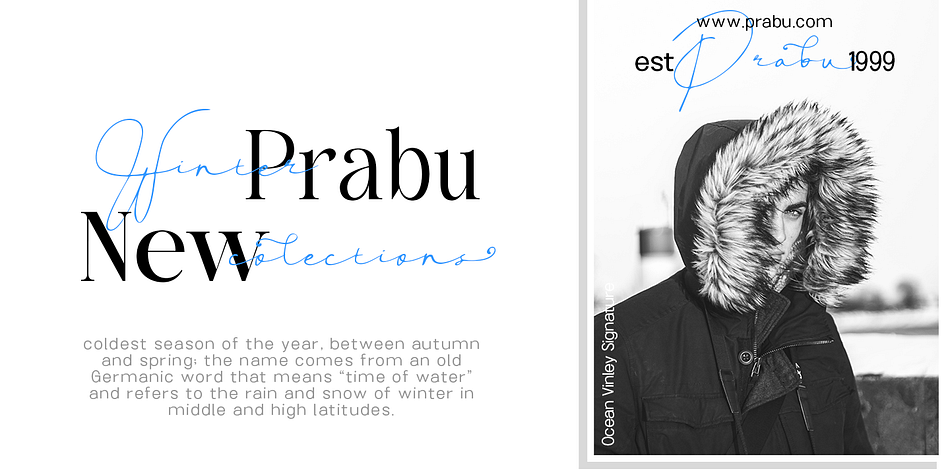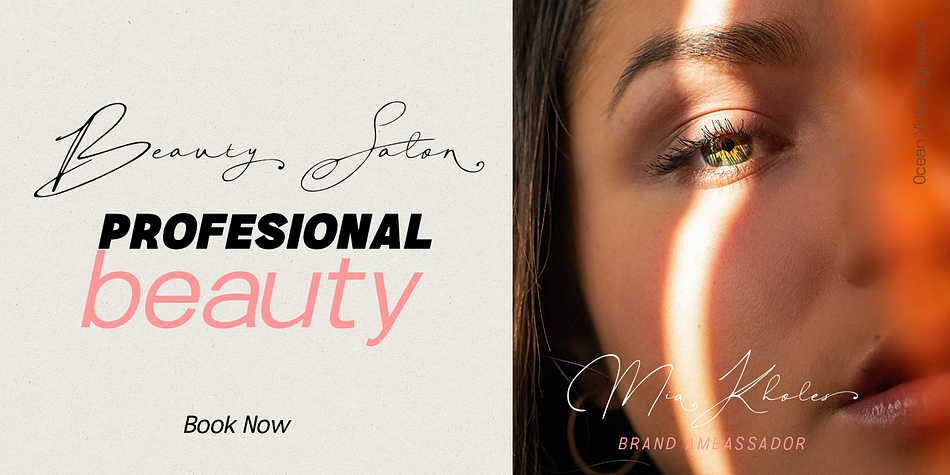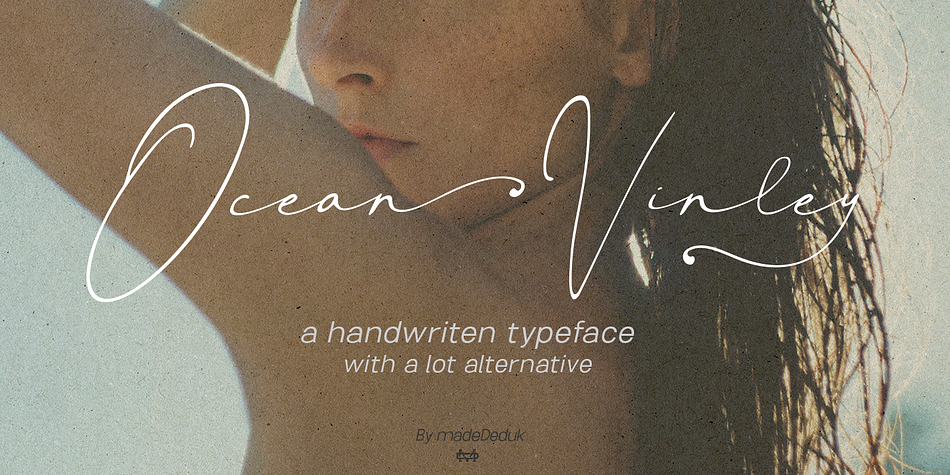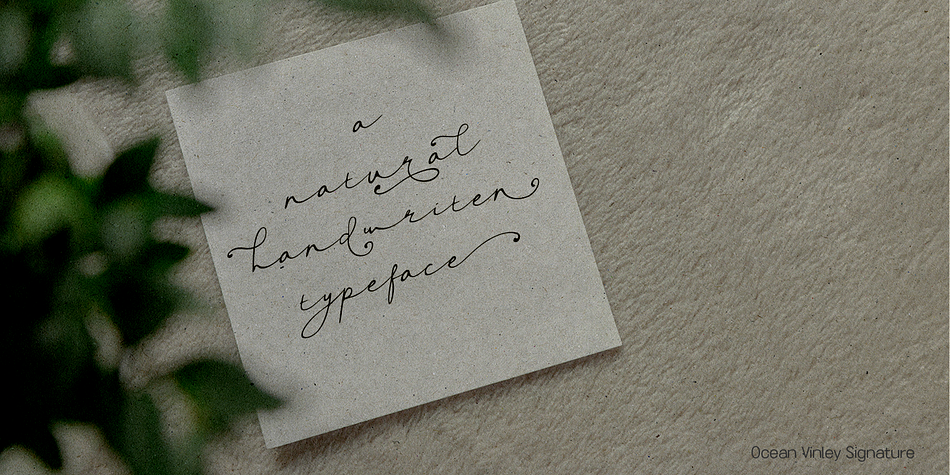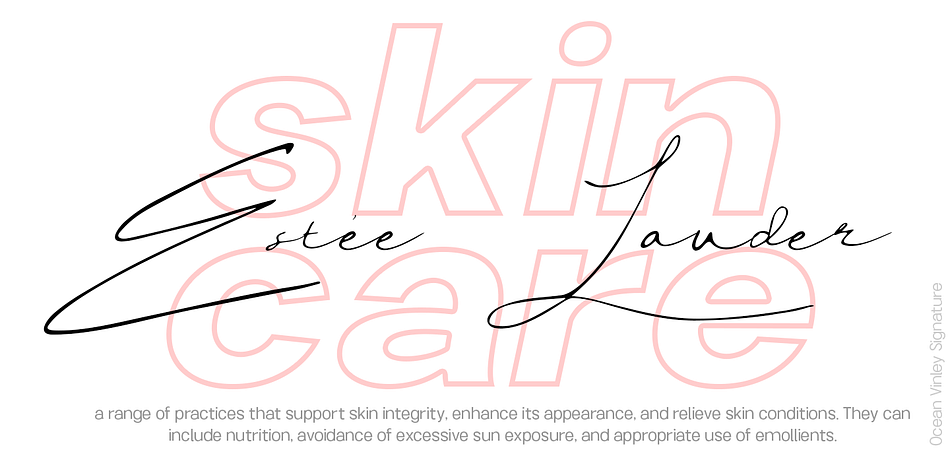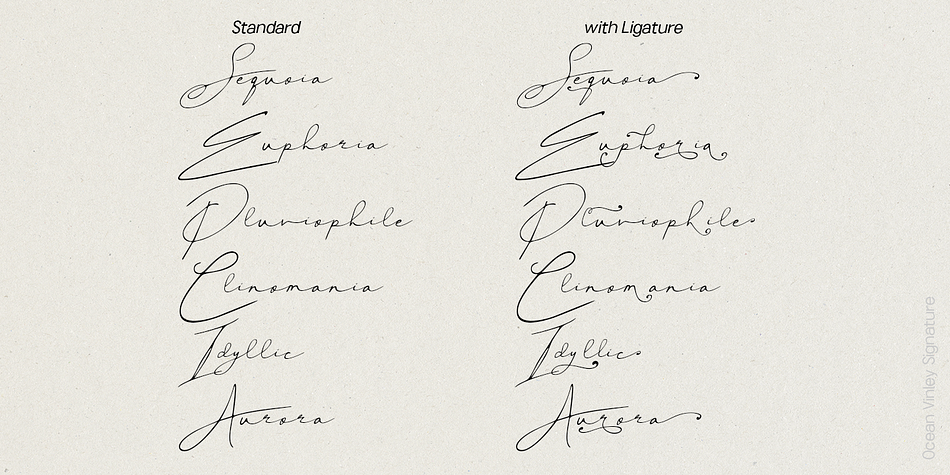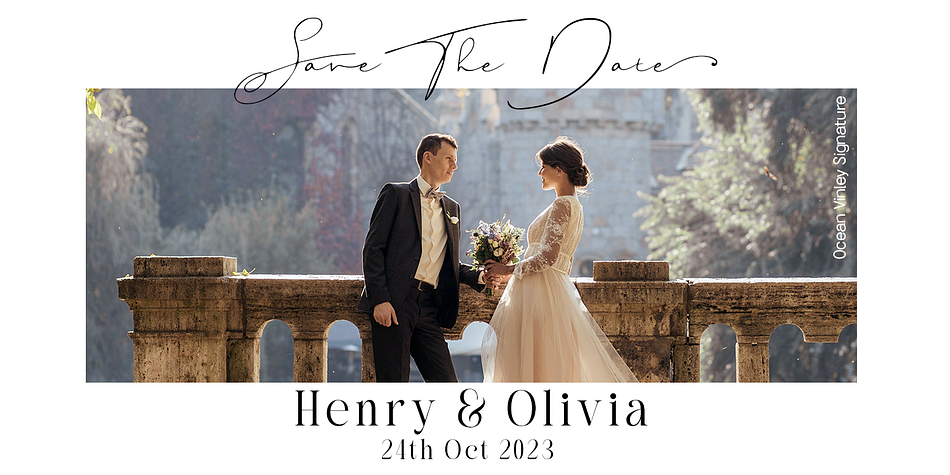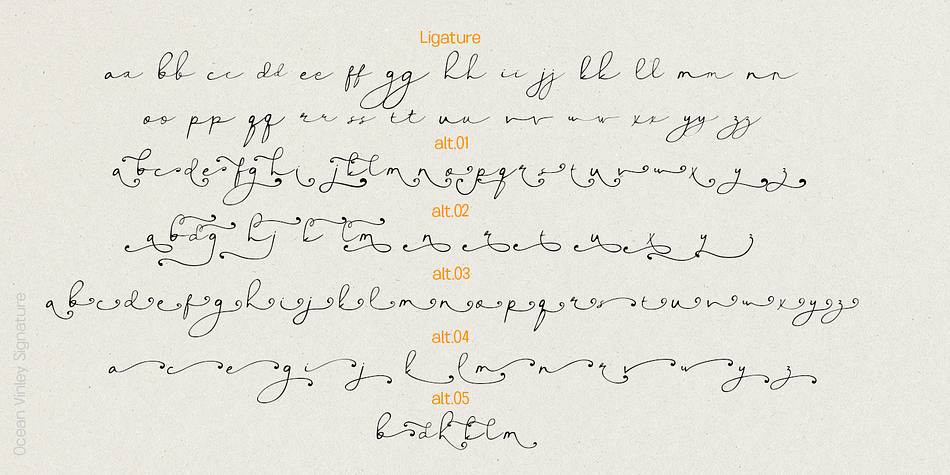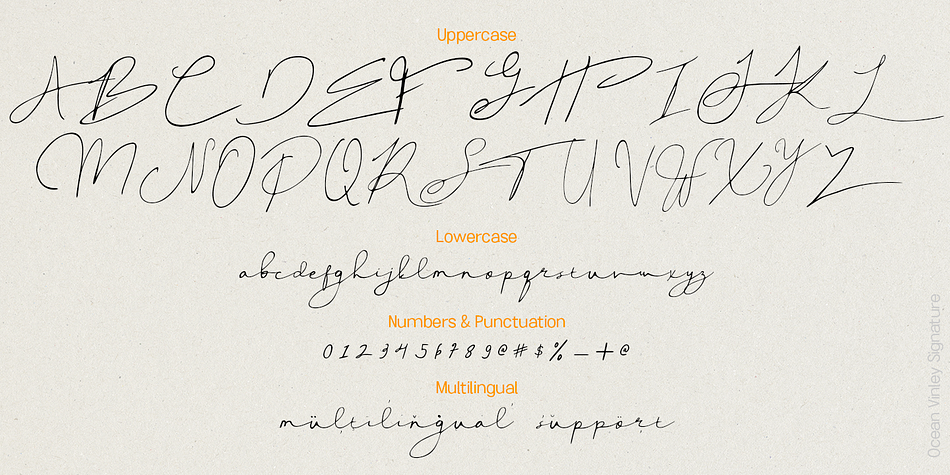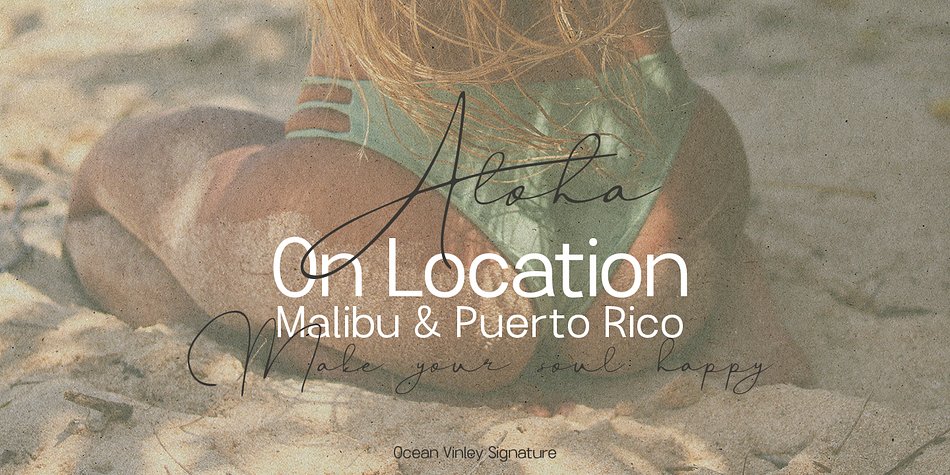
Ocean Vinley
Designed by Suandana Ipandemade, Ocean Vinley is a modern calligraphy font family. This typeface has two styles and was published by madeDeduk.
Ocean Finley Signature is a flowing handwritten font, described by an elegant touch, perfect for your favorite projects. Fall in love with its incredibly distinct and timeless style and use it to create spectacular designs!
- Uppercase
- Lowercase
- Multilingual Support
- Ligature
- Alternative